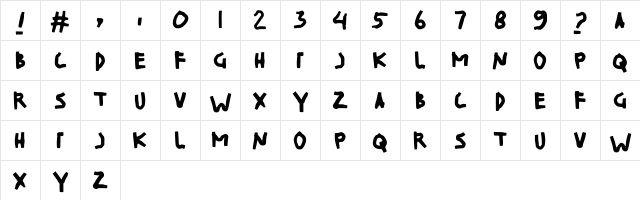
KinDisplay Medium
Design Context for KinDisplay
KinDisplay is built around its visual character rather than neutral utility - its distinctive forms are designed to make an impression at display sizes.
Font Pairing: Pair with a clean neutral sans-serif for body copy to let KinDisplay's character lead without overwhelming the composition.
Pro Tip: Use KinDisplay exclusively at display sizes - it was designed to be seen, not read at length. Let a neutral companion handle body copy.